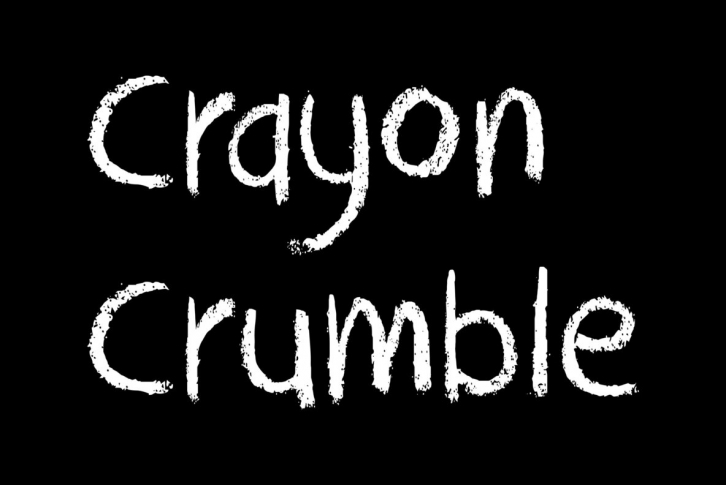
Crayon Crumble is exactly what it reads on the package: it was made using cheap crayons, since the cheapies crumble a lot. It is a fun, kiddie font, with a grown-up look to it. It has been used for packaging, book covers, movie posters, T-shirts and educational books. Comes with all the diacritics.